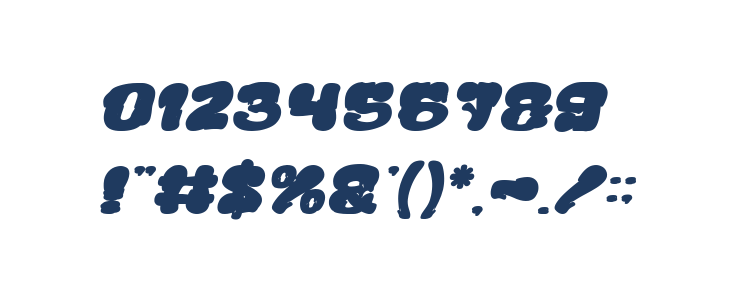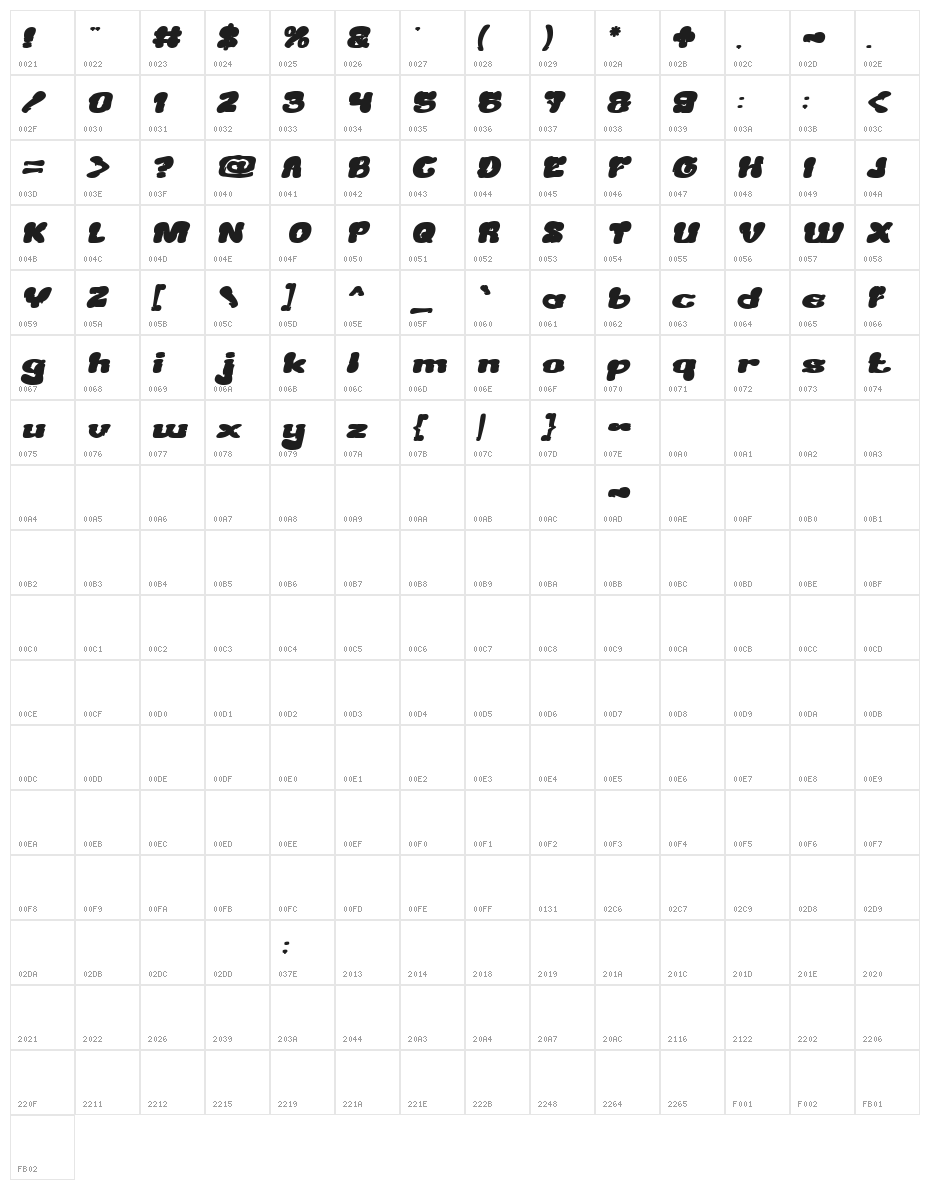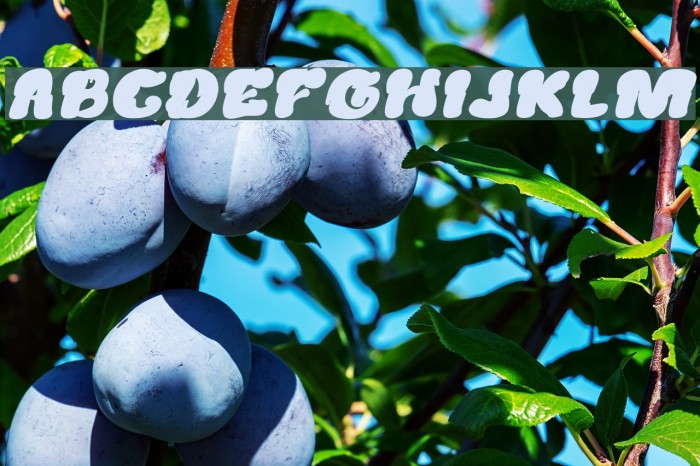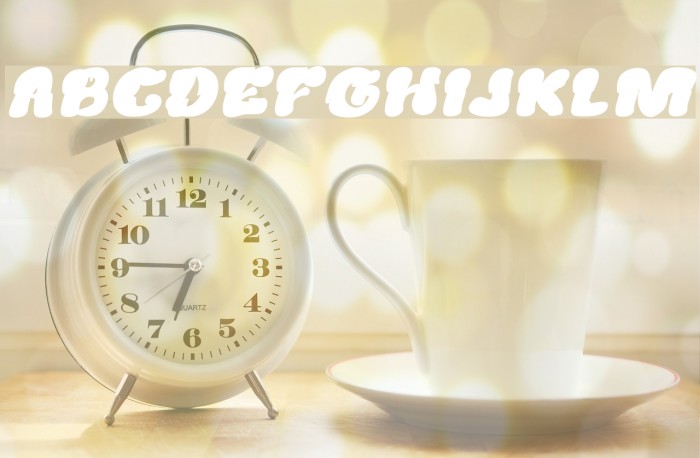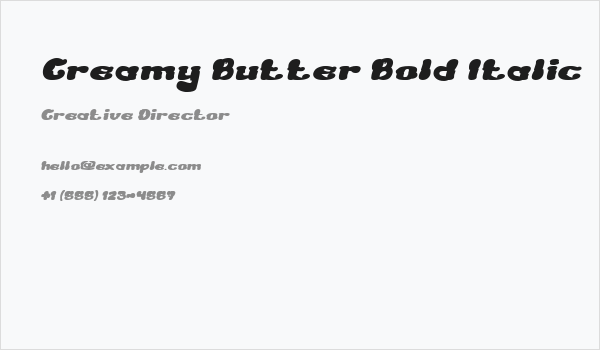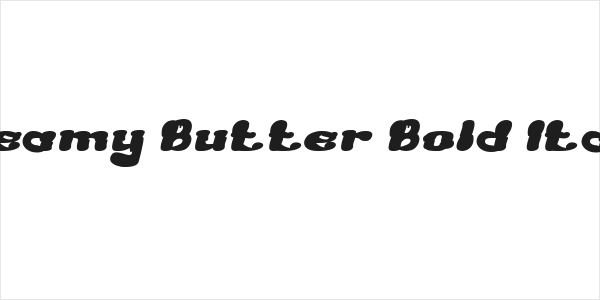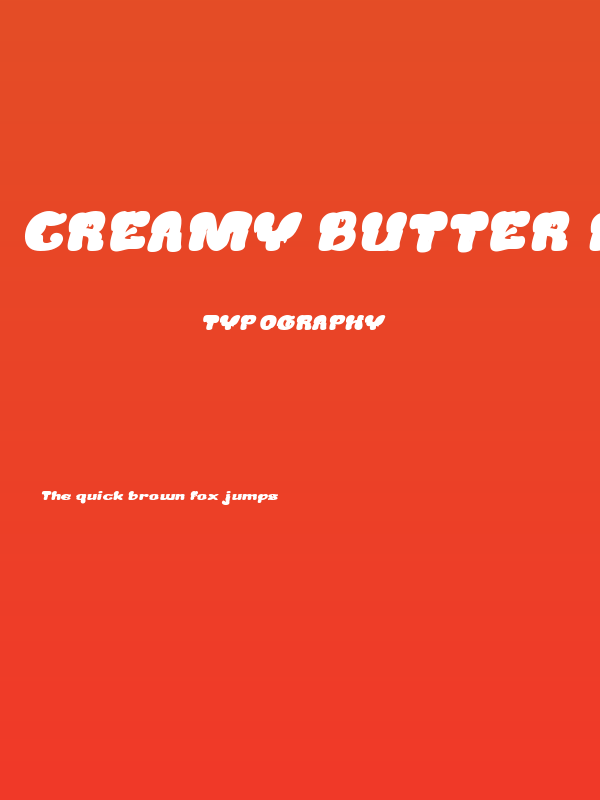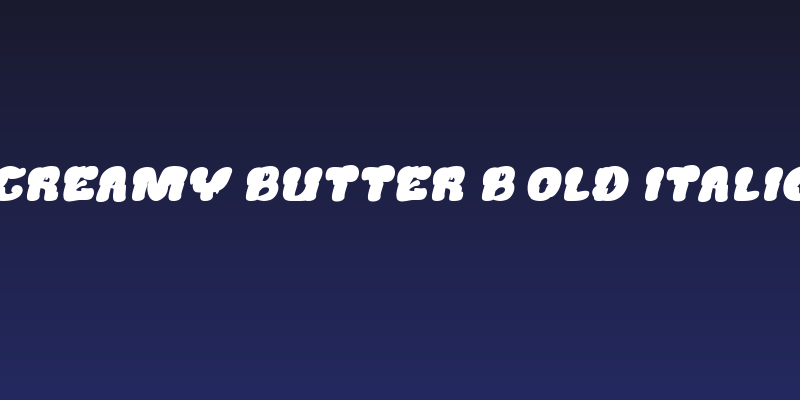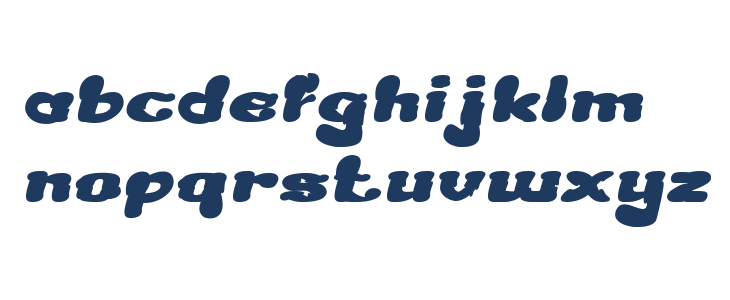
Creamy Butter Bold Italic Font
Creamy Butter Bold Italic Description
This font features a bold and italicized style with a playful, rounded appearance. The characters are thick and have a smooth, flowing design that gives them a creamy, buttery look. The strokes are consistent in width, creating a uniform and cohesive appearance. The letters have a slight slant, enhancing the italic effect, while maintaining a bold presence. The overall style is both modern and decorative, making it suitable for eye-catching designs. The font includes a full set of uppercase and lowercase letters, numbers, and a variety of special characters, providing versatility for different design needs.
| Proposed Projects | Ideal for branding, packaging, posters, and any design that requires a bold and playful touch. |